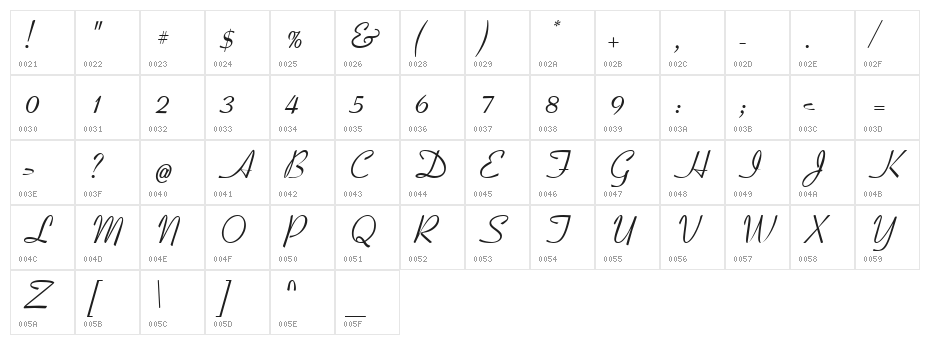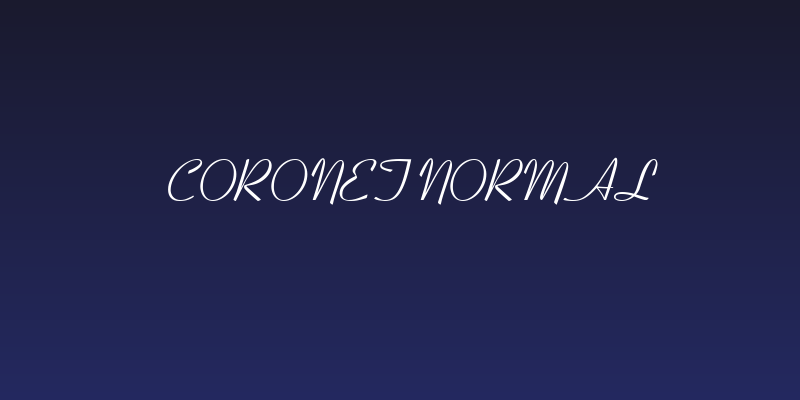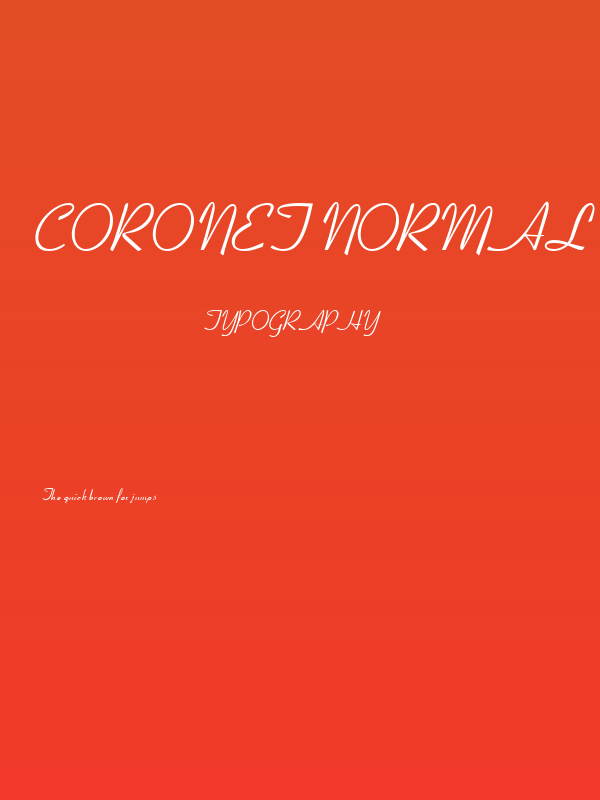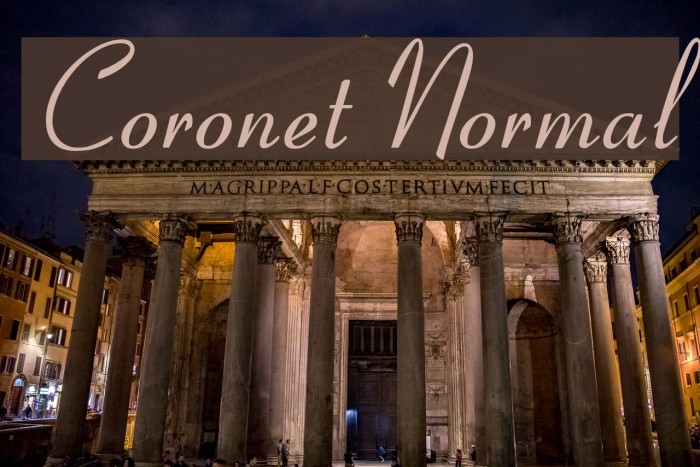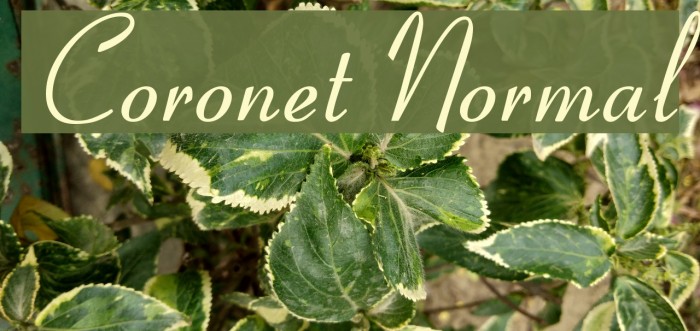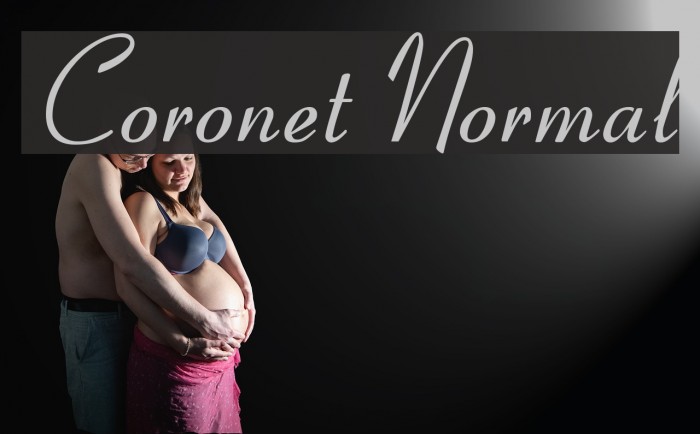
Coronet Normal Font
Coronet Normal Description
This elegant script font features flowing, cursive letterforms with a sophisticated and refined appearance. The uppercase letters are characterized by their graceful, sweeping lines and delicate curves, while the lowercase letters maintain a consistent fluidity, enhancing the overall aesthetic. The numerals are styled to match the script's elegance, providing a cohesive look across all characters. Special characters are thoughtfully designed to complement the font's style, making it versatile for various uses. The font's overall impression is one of classic beauty and timeless elegance, suitable for formal and decorative applications.
| Overall Style | Classic |
| Use Case | Logos, Invitations, Decorative text |
| Proposed Projects | Ideal for wedding invitations, formal event programs, elegant branding, and decorative signage. |